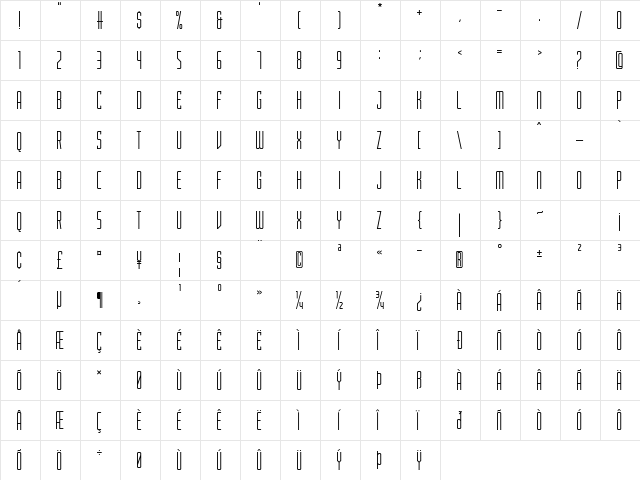
Porton Regular
Design Context for Porton Typeface
Porton takes a measured approach to typography — its balanced proportions and neutral character make it a reliable workhorse for both digital and print work.